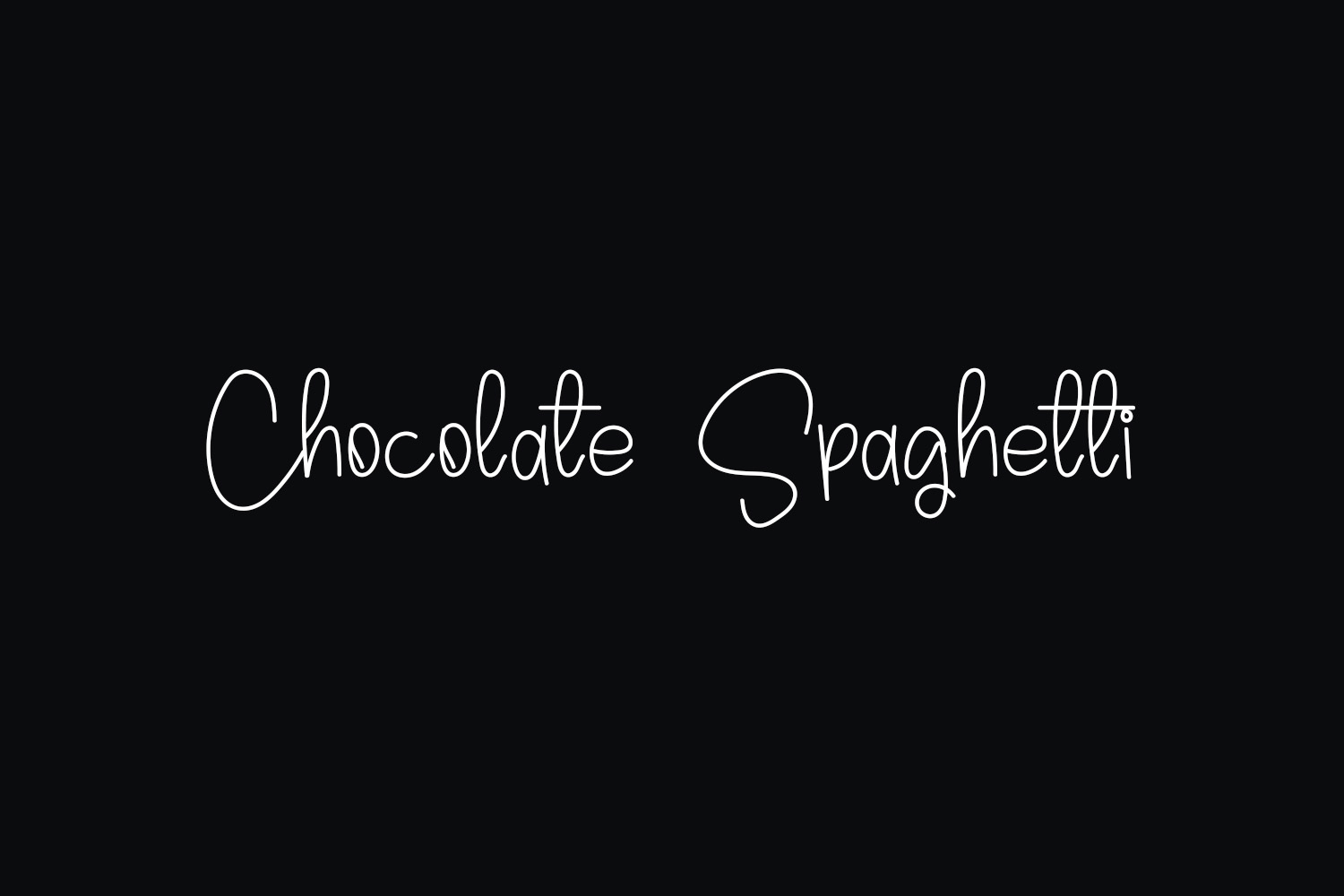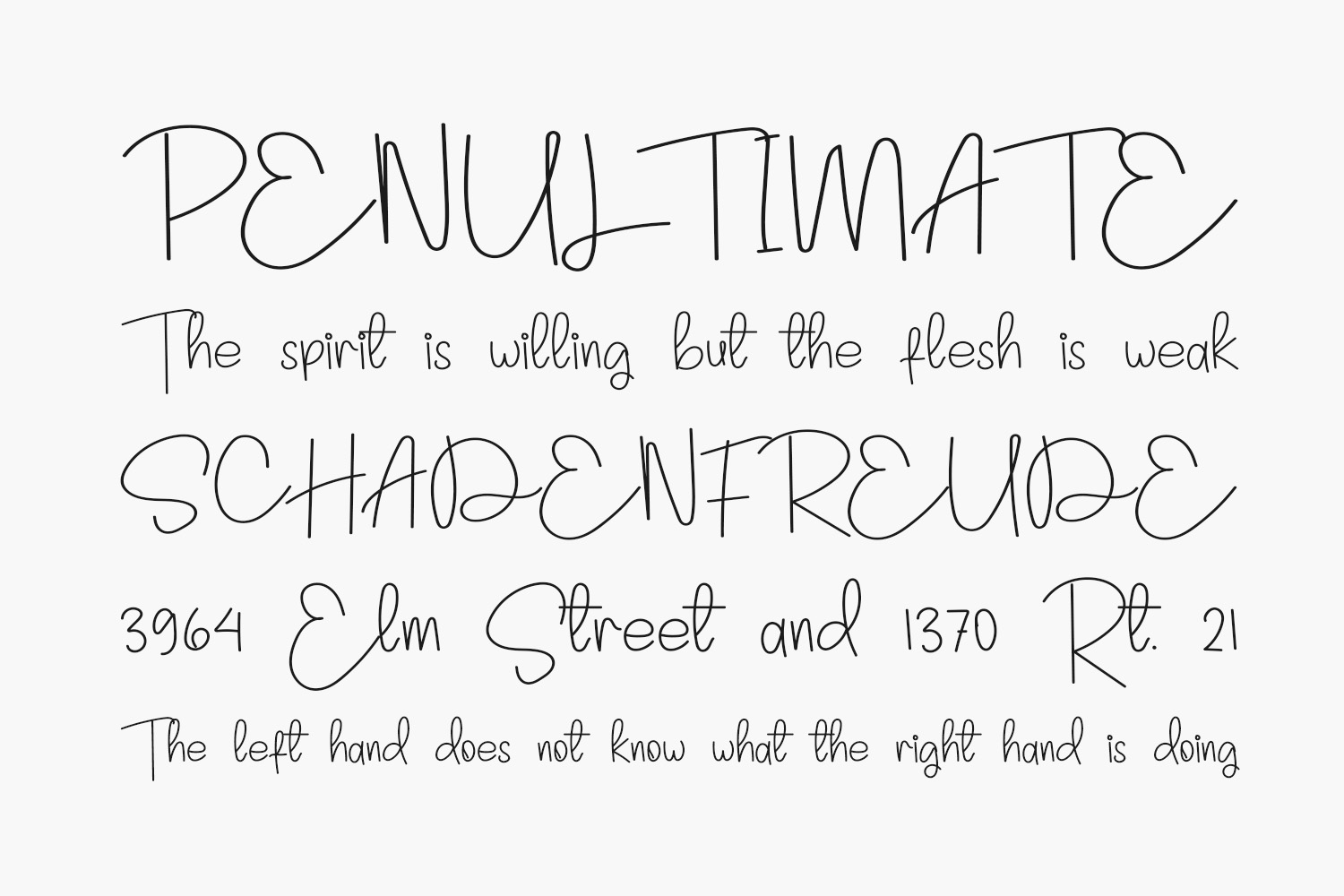
Chocolate Spaghetti Free Font is a thin and friendly handwritten font. Simple and easy to use, this font will be very beautiful if you mix it with your various craft designs. Chocolate Spaghetti Free Font was designed by Inermedia Studio and is free for personal use only. Please purchase the full version for commercial use.
Designed by Inermedia Studio